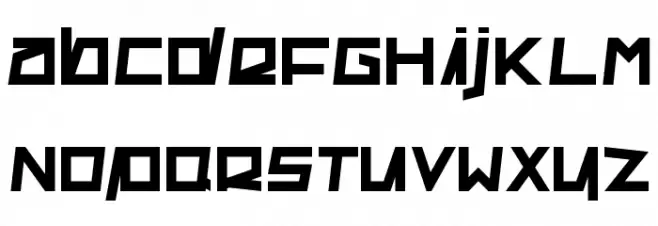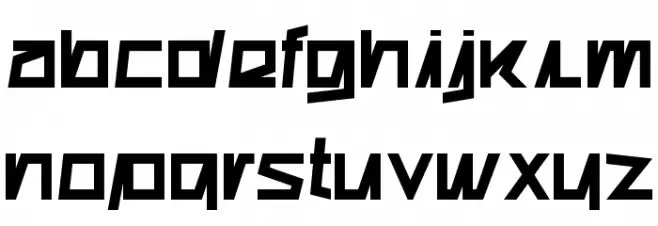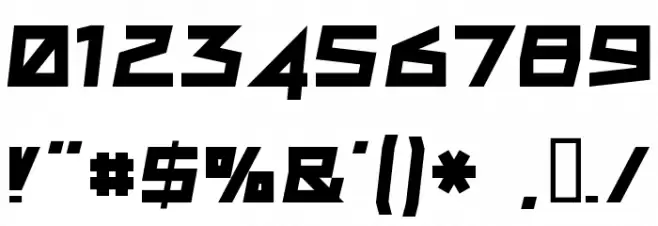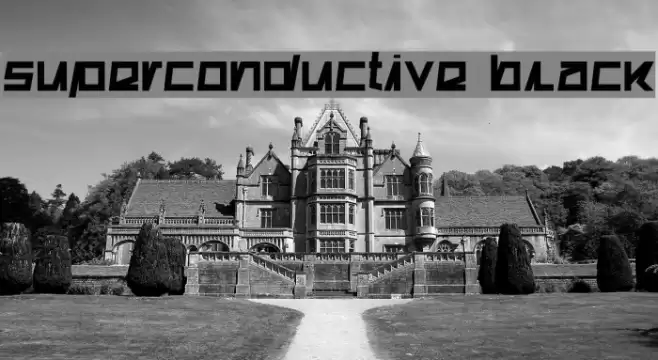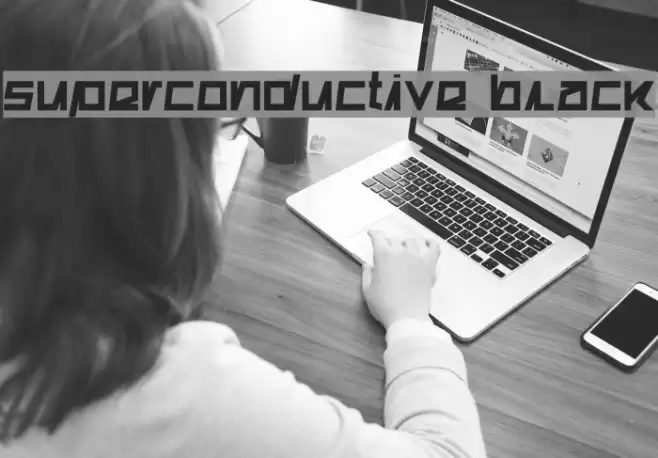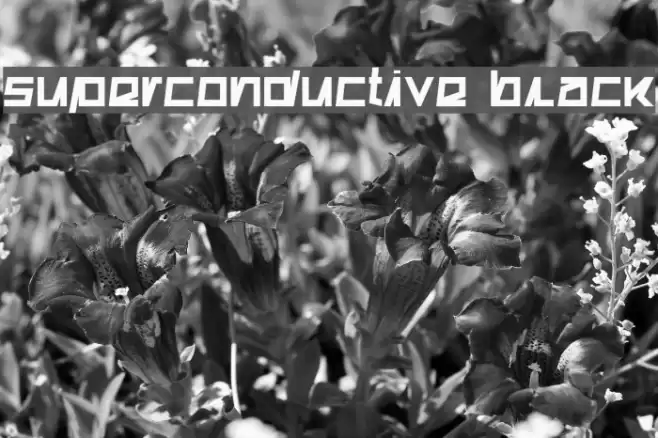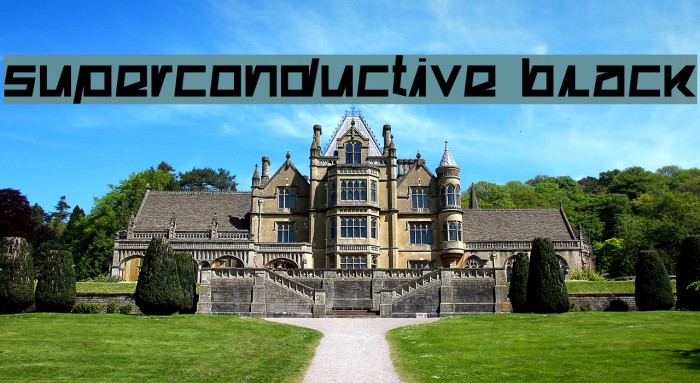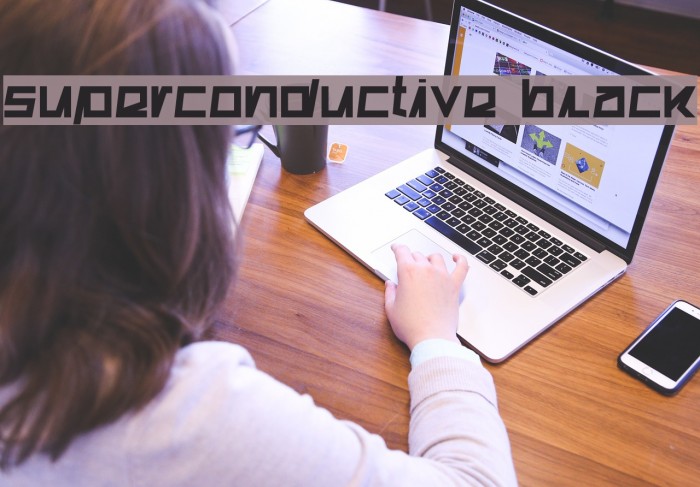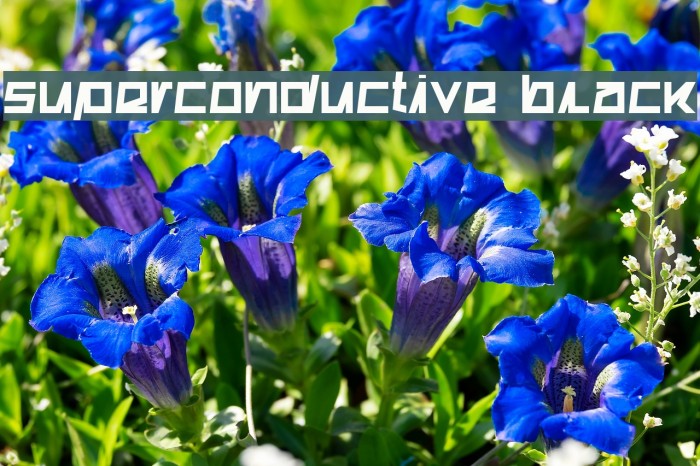
Superconductive Black Font
Superconductive Black Description
This font exhibits a bold, geometric style with sharp angles and a futuristic aesthetic. The characters are designed with a distinct angularity, giving them a dynamic and edgy appearance. The uppercase and lowercase letters maintain a consistent style, with the lowercase slightly more compact. Numbers and special characters follow the same angular theme, ensuring uniformity across all glyphs. The font's boldness and unique design make it stand out, ideal for projects that require a modern and striking visual impact.
- Proposed Projects: Ideal for sci-fi themed designs, video game graphics, posters, and branding that requires a modern and bold look.